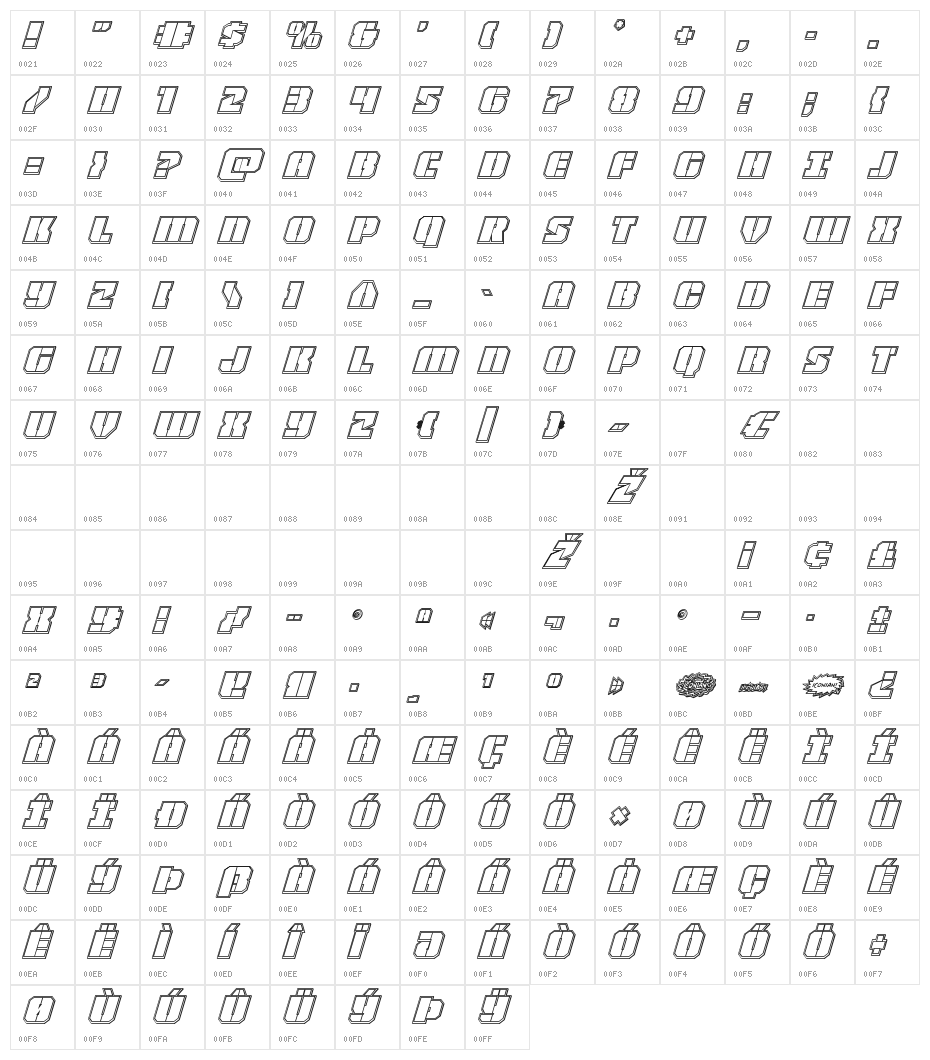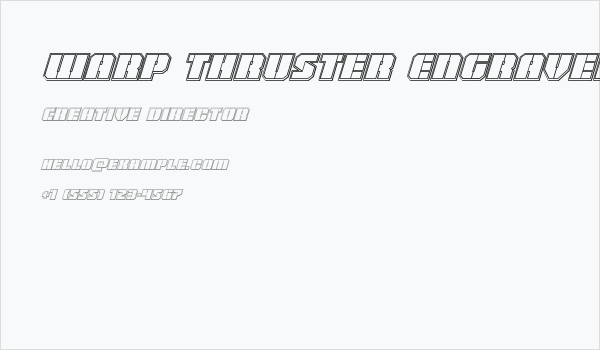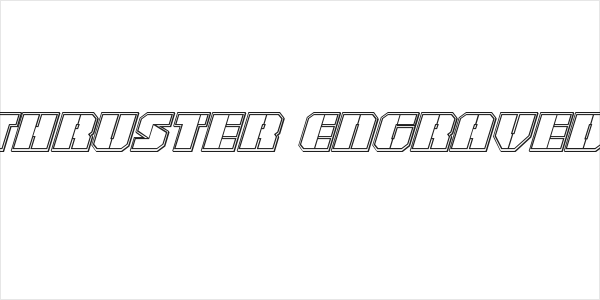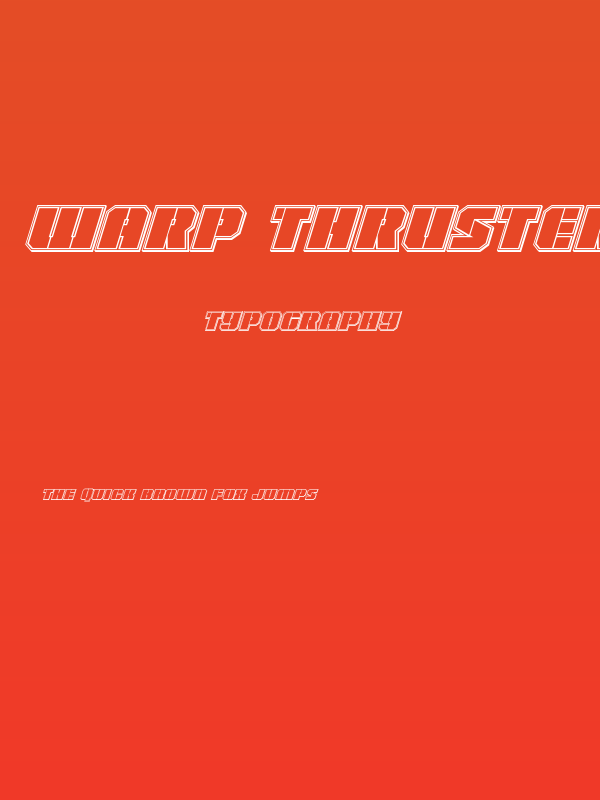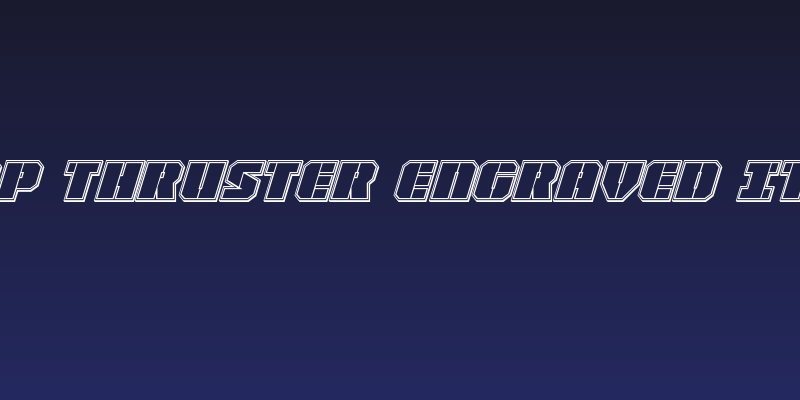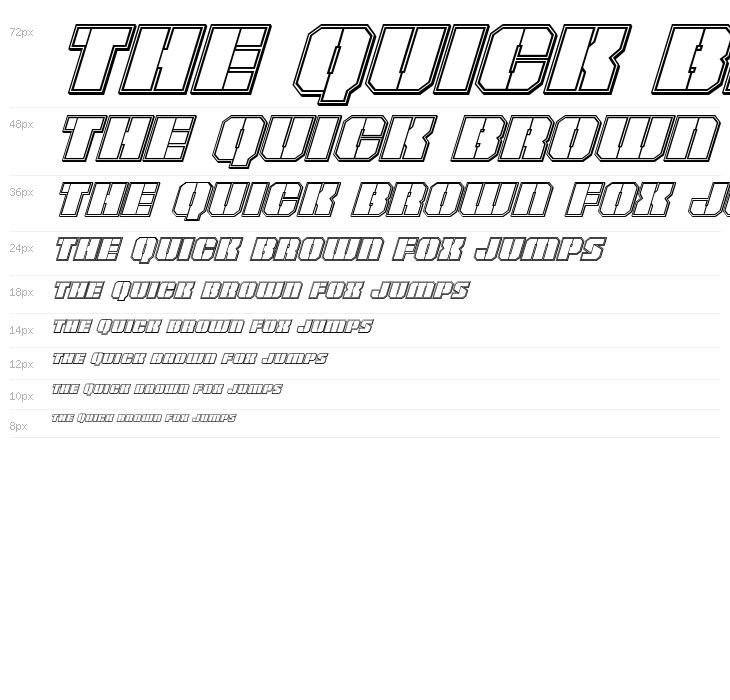
Warp Thruster Engraved Italic Font
Warp Thruster Engraved Italic Description
This font features a futuristic and dynamic design with a strong emphasis on angular lines and geometric shapes. Each character is outlined, creating a bold and striking appearance that suggests movement and speed. The italic style adds a sense of forward momentum, enhancing its modern and edgy look. The uppercase and lowercase letters maintain a consistent style, with sharp edges and a slightly condensed form. Numbers and special characters are designed to match the overall aesthetic, making this font ideal for projects that require a high-tech or sci-fi theme.
| Proposed Projects | Ideal for sci-fi themed posters, video game graphics, tech branding, and futuristic event invitations. |